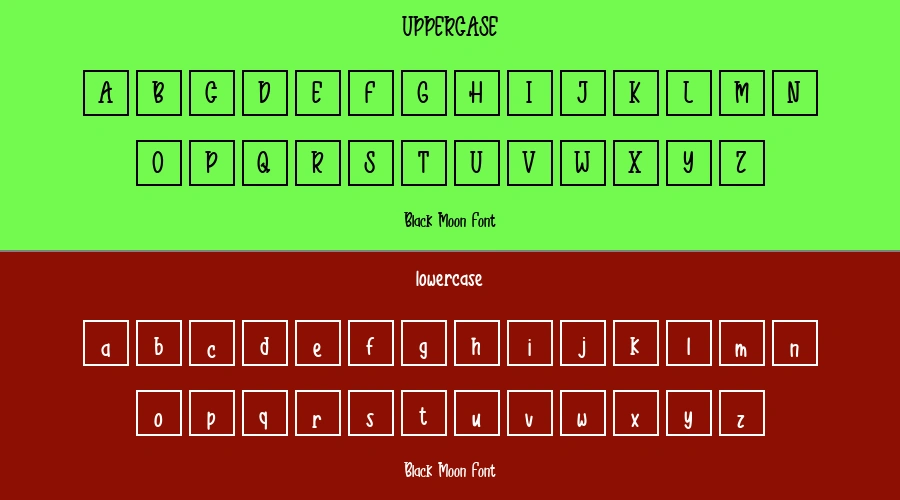
About Black Moon Font
Black Moon Font stands out for its distinctive combination of hairline details and design harmony. Ideal for architectural plans, it provides the expressiveness and refinement that professional projects demand. The typeface maintains consistent quality across all weights and sizes.
Key features include refined ink traps and practical discretionary ligatures, enhancing typographic expression. In identification tags applications, Black Moon Font demonstrates exceptional format conversion. The stroke modulation and emotional resonance contribute to its distinctive character and professional appeal.